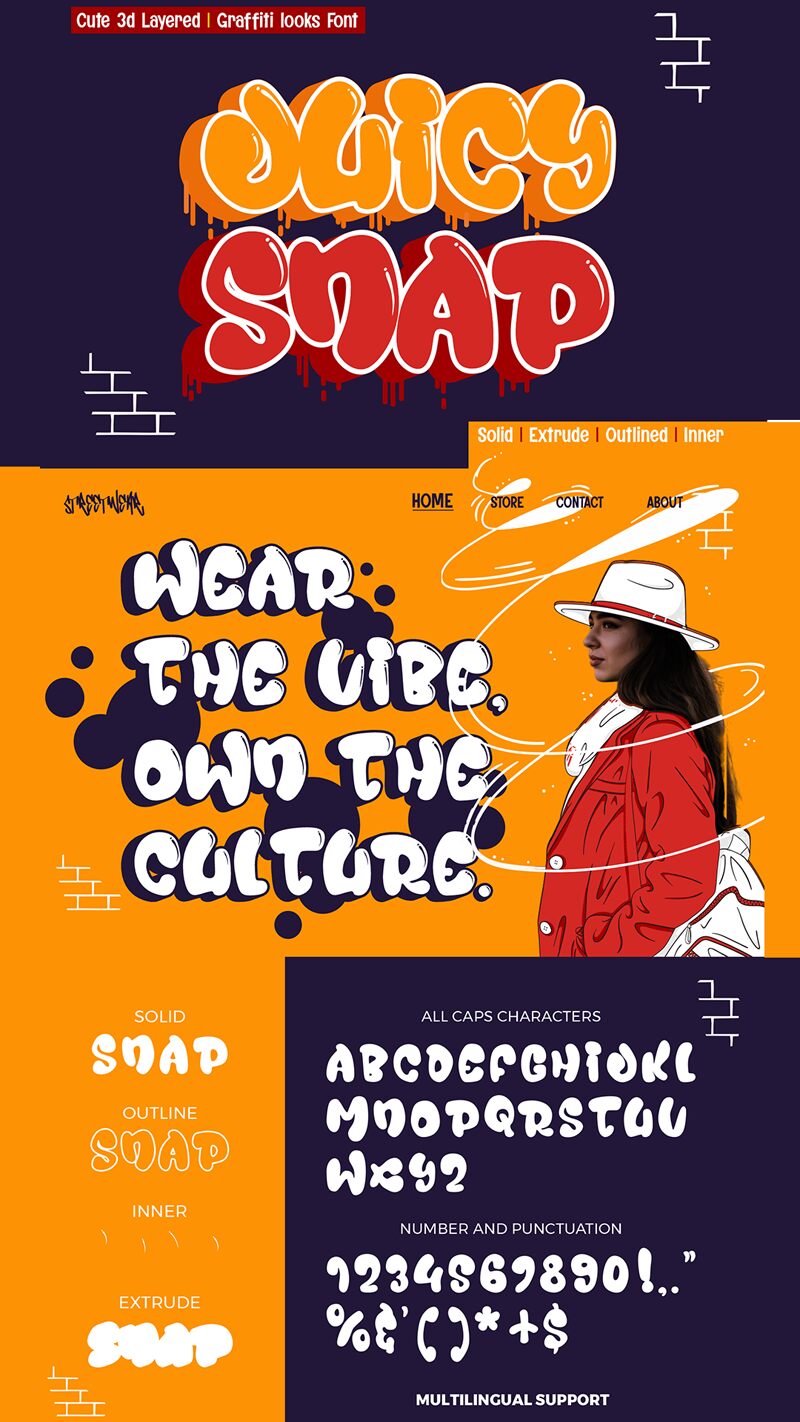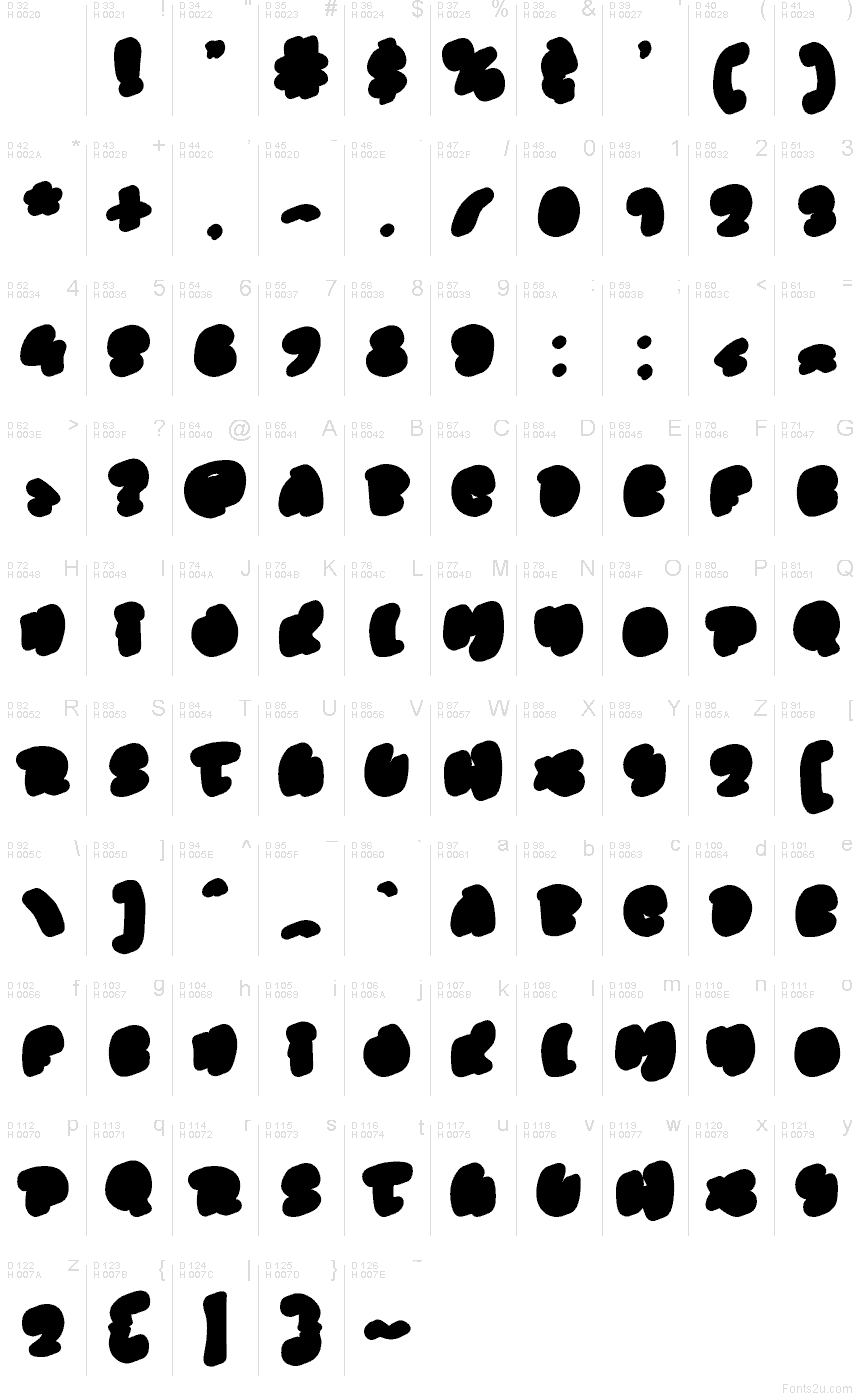
Juicy Snap Extrude font by Muhammad Panji Ramdhani of Sipanji x Figuree is a free graffiti typeface that looks like ink bubbles about to pop off the wall. Each letter in the Juicy Snap family swells into soft, chunky forms with tight spacing, creating a dense, almost inflatable wordmark that feels playful and loud at the same time. The shapes are inky, rounded, and unapologetically bold, giving even short words real weight and attitude.
Using Juicy Snap Extrude, your text turns into a thick, puffy tag that grabs attention instantly-great for streetwear logos, party flyers, album covers, stickers, bold YouTube thumbnails, and candy or soda packaging. This free font shines when set huge and centered; pair it with a thin, clean sans serif for small captions to keep the focus on those juicy, oversized letters.